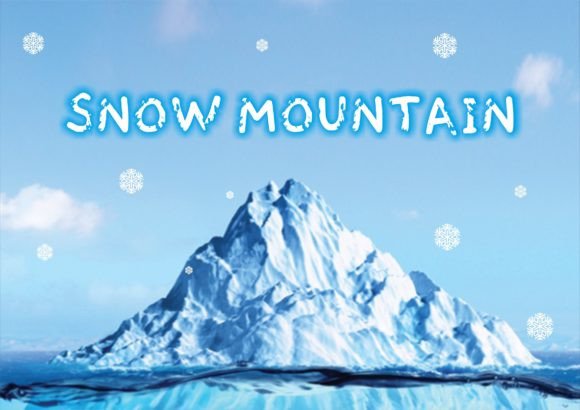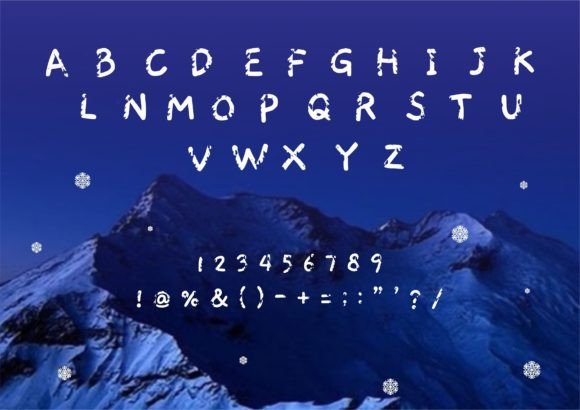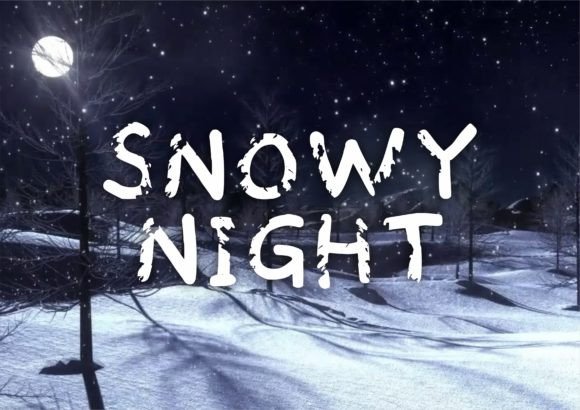
The Ultimate Guide to Cool Font: Elevate Your Designs with a Touch of Frosty Elegance
I’ll never forget the time I was working on a winter-themed project, and I just couldn’t find the perfect font to capture the essence of snowflakes gently falling on a serene landscape. My client was counting on me to deliver a design that would make their brand stand out, but I was stuck. That’s when I stumbled upon Cool Font, a game-changing, brushed decorative font that resembles snow on each character. In this article, I’ll share my love for Cool Font, its features, and how to make the most of it in your designs.
An Honest Review of Cool Font
So, what makes Cool Font so special? Let’s dive into the good stuff and a few quirks to keep in mind.
What I Love About Cool Font ✨
- 💫 Unique Snowy Texture: Each character is designed to resemble snow, adding a touch of frosty elegance to any design.
- ✅ Versatility: Cool Font is perfect for a wide range of projects, from winter-themed designs to everyday creative endeavors.
- 🎨 Artistic Freedom: The font’s decorative style gives you the flexibility to experiment with various design concepts.
- 🕒 Time-Saving: With Cool Font, you can achieve a professional, high-end look without spending hours on custom design work.
- ⚠️ Legibility at Small Sizes: Due to its decorative nature, Cool Font may become less legible at very small font sizes. It’s best used at larger sizes (24pt or above) for optimal impact.
The Story Behind Cool Font: A Designer Inspiration
Cool Font was created by a talented designer who wanted to capture the magic of snowfall in a digital font. Inspired by the intricate patterns of snowflakes, the designer carefully crafted each character to resemble a delicate snowflake. The result is a font that’s both beautiful and versatile.
| Font Name | Cool Font |
| Author | Mas Edit |
| What type of projects is Cool Font best suited for? | Cool Font is perfect for winter-themed designs, festive projects, and any creative endeavor where you want to add a touch of frosty elegance. |
| Is Cool Font available in different styles or weights? | Currently, Cool Font is available in a single style. However, the designer may release additional variations in the future. |
In conclusion, Cool Font is a valuable addition to any designer’s font library. Its unique snowy texture, versatility, and artistic freedom make it an excellent choice for a wide range of projects. By understanding its features and limitations, you can unlock the full potential of Cool Font and take your designs to the next level.